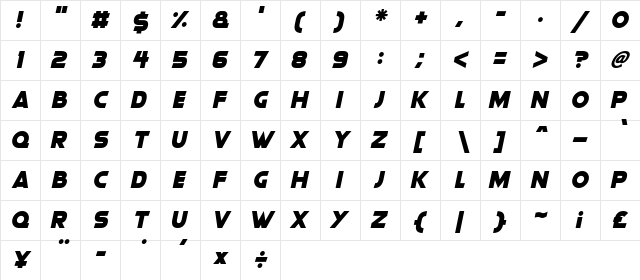
Gorgeous Grafix Italic
Design Context for Gorgeous Grafix Typeface
Gorgeous Grafix offers clean, dependable letterforms without strong stylistic allegiance, making it a practical choice for designers who need flexibility. The dynamic lean of this cut emphasises speed and emphasis in any layout.
Pro Tip: Try Gorgeous Grafix for annotation and caption copy alongside an upright companion — the contrast in angle creates a dynamic but ordered typographic system.